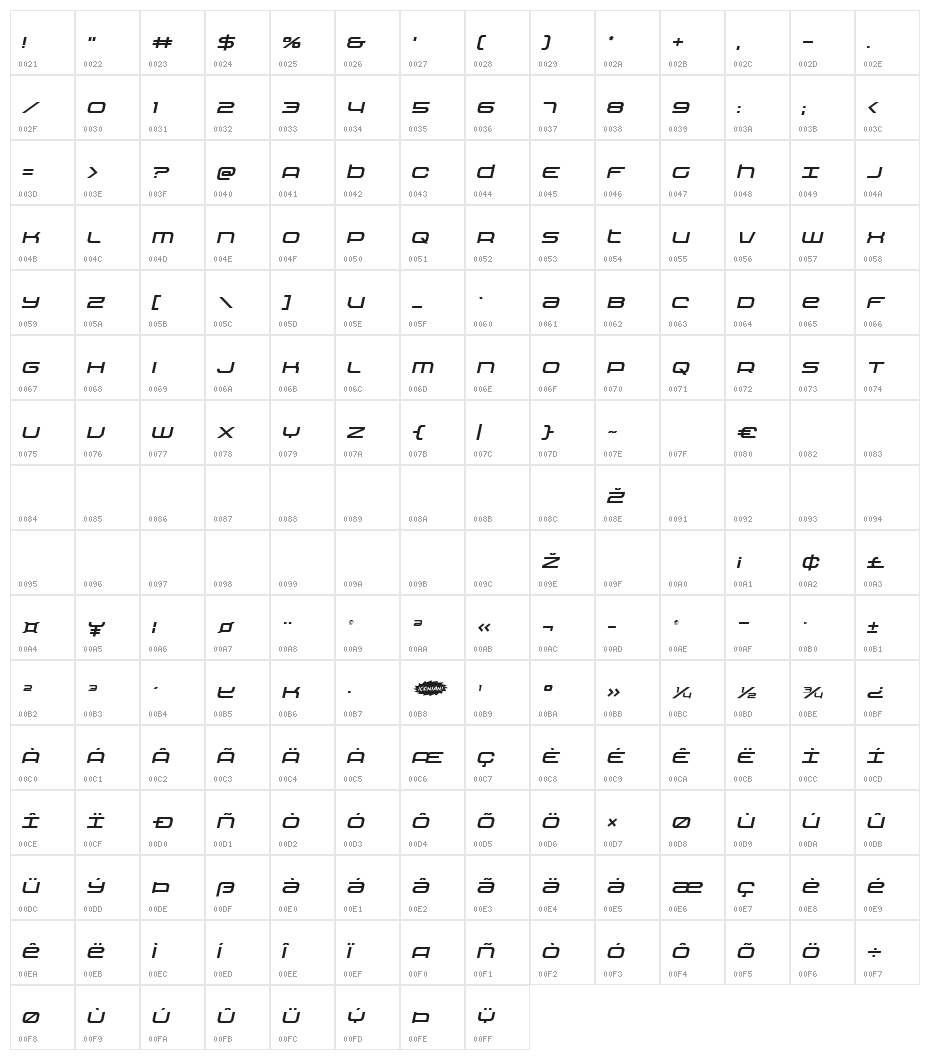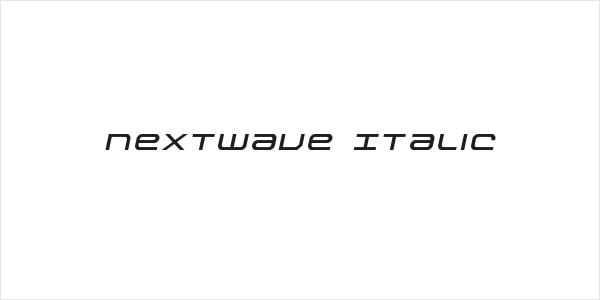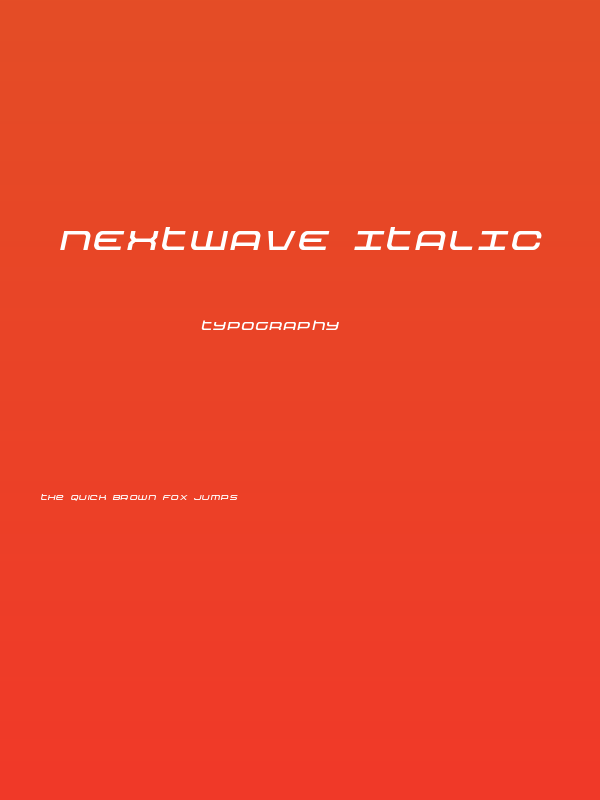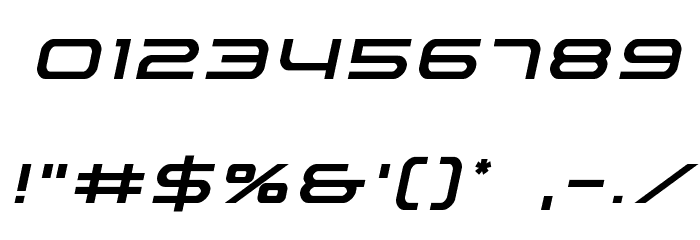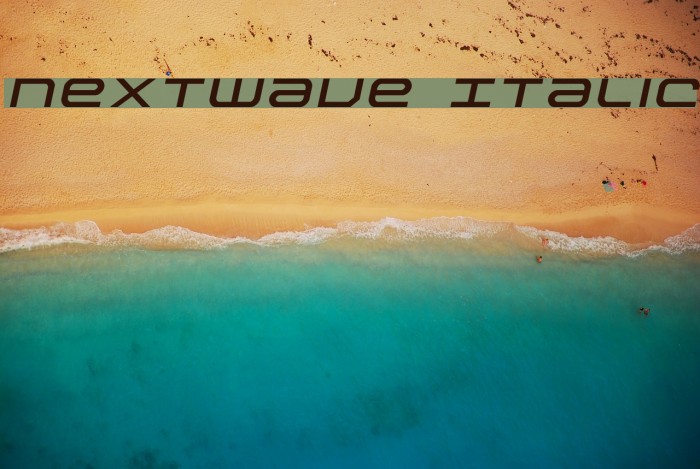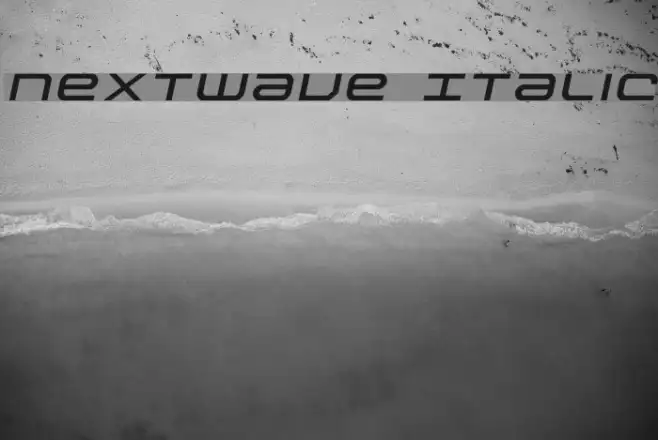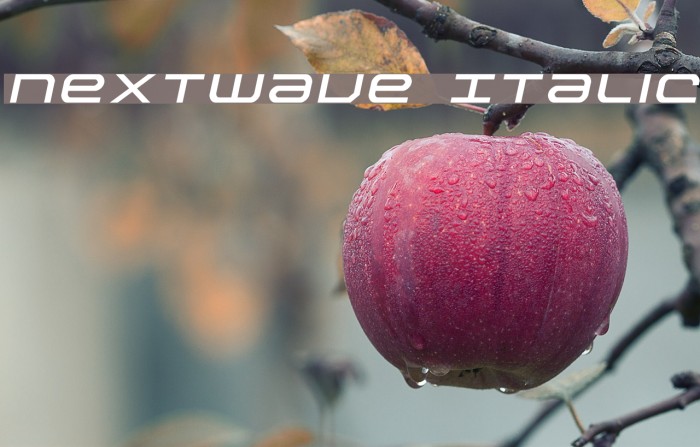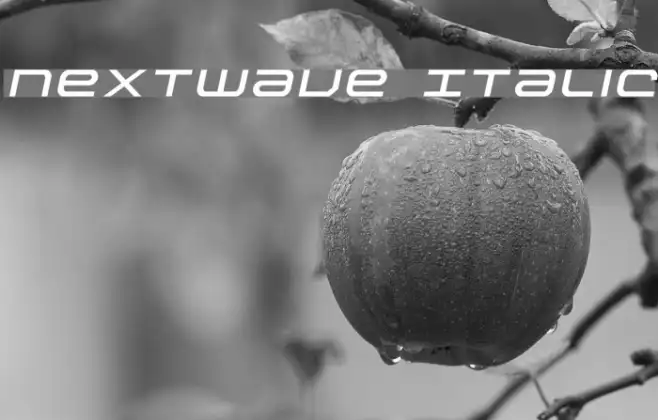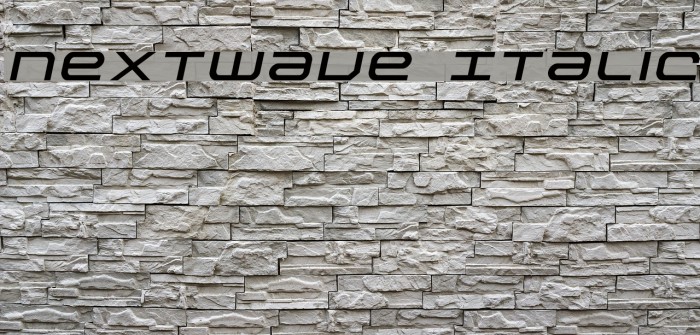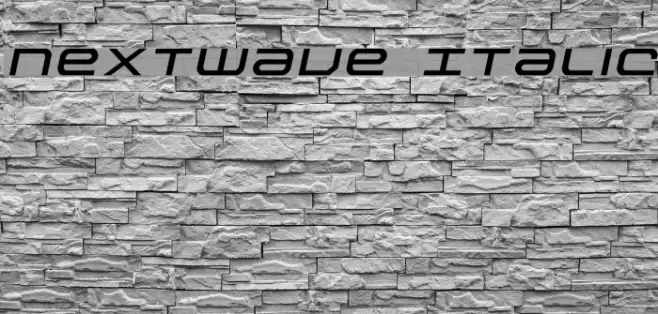
Nextwave Italic Font
Nextwave Italic Description
This font features a sleek, modern design with a futuristic flair. The characters are slightly italicized, giving them a dynamic and forward-moving appearance. Each letter is crafted with precision, featuring clean lines and a consistent stroke width that adds to its contemporary aesthetic. The font maintains a uniform structure across both uppercase and lowercase letters, ensuring readability and coherence. The numerals and special characters are designed to match the overall style, making it versatile for various applications.
NEXTWAVE-ITALIC UPPERCASE
NEXTWAVE-ITALIC LOWERCASE
NEXTWAVE-ITALIC OTHER CHARS
| Use Case | Headlines, Logos, Digital interfaces |
| Proposed Projects | Ideal for tech branding, digital interfaces, futuristic posters, and modern advertising campaigns. |